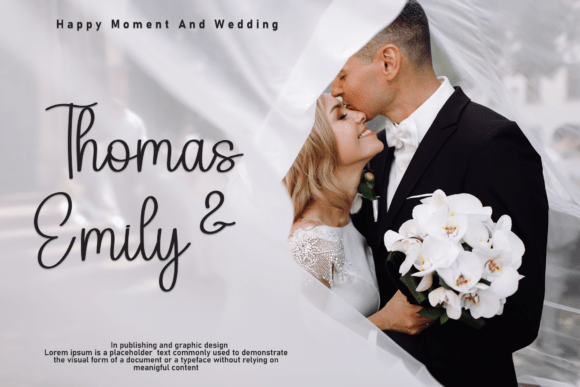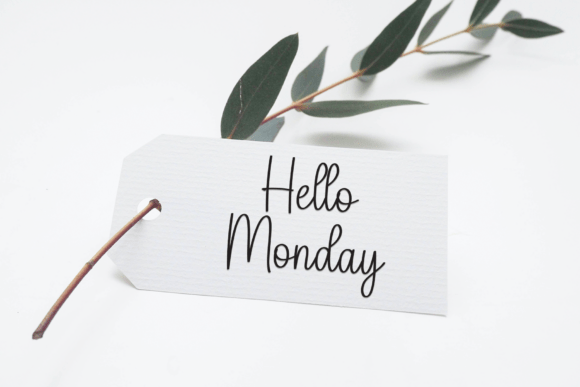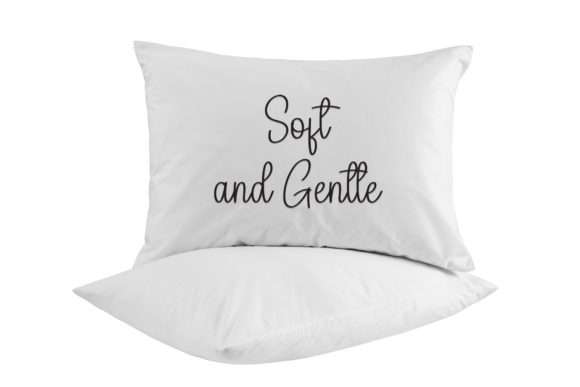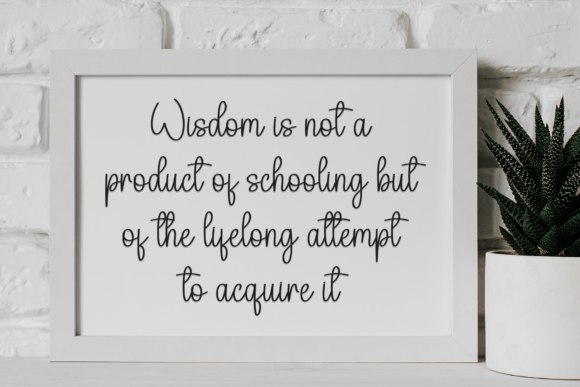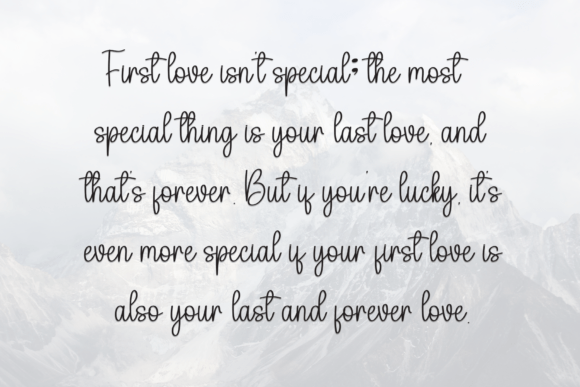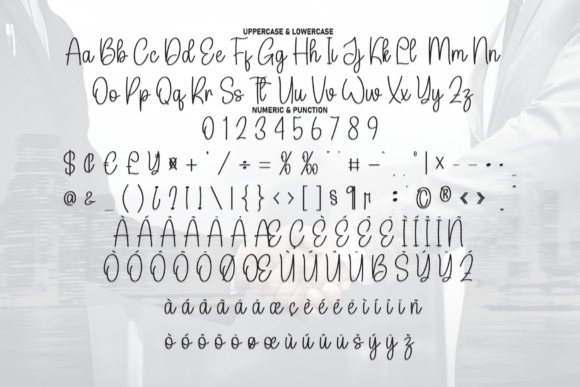
The Perfect Script for a Personal Touch
Have you ever been stuck in front of a blank design project, desperately searching for that perfect font to give it a personal touch? I know I have. Sometimes, all it takes is one stylish script to transform a design from bland to grand. That’s where the Greeting Background Font comes in – a stunning script font that exudes artistic flair and contemporary elegance.
This beautiful font is designed to evoke the feeling of hand-painted calligraphy, with fluid brush strokes, dynamic curves, and expressive letterforms that are sure to captivate your audience. Whether you’re creating logos, invitations, packaging, or social media graphics, the Greeting Background Font is the perfect addition to add a creative and sophisticated touch to your design. Its natural flow and vibrant character make it a valuable asset for any designer looking to elevate their work.
Greeting Background Font Key Features
- Unique Characteristics: The font features a unique blend of modern and classic elements, making it perfect for creating eye-catching greetings and invitations.
Greeting Background Font Review
Overall, I’d say the Greeting Background Font is a cute addition to any greeting card or invitation design. It’s perfect for those special occasions where you want to convey a sense of warmth and friendliness.
- ✨ The font’s playful and cursive design makes it perfect for adding a touch of whimsy to your design.
- ✨ The font is highly customizable, allowing you to adjust the color, size, and spacing to fit your design needs.
- ✨ The font is also highly legible, even at smaller sizes, making it perfect for use on business cards, invitations, or other small-scale designs.
- ⚠️ The font may be too ornate for more formal or professional designs, as it can come across as overly playful or childish.
- ⚠️ The font may not be suitable for use in situations where a more straightforward or modern design is required.
In terms of overall impression, I think the Greeting Background Font is a great addition to any design library, but it’s not a one-size-fits-all solution. It’s perfect for those special occasions where you want to convey a sense of warmth and friendliness, but may not be the best choice for more formal or professional designs.
Greeting Background Fonts are commonly used for:
– Birthday and wedding invitations
– Holiday greeting cards and decorations
– Business presentations and marketing materials
– Personalized gifts and stationery